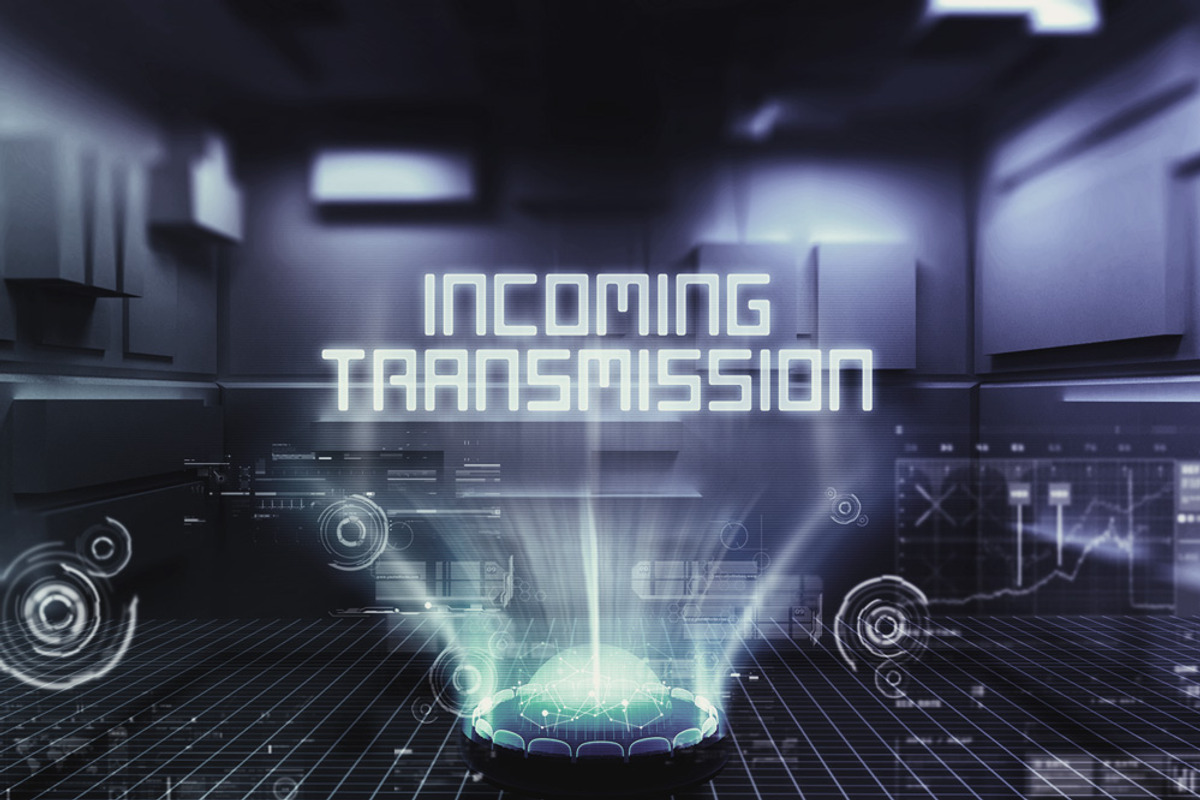
Solaris - Futuristic Font
Solaris - Futuristic Font by Tugcu Design Co. is a font selected for branding, posters, packaging, typography.
- Solaris is a futuristic font with alternate letters, numericals and punctuation.
- Solaris Regular
Why Solaris - Futuristic Font is worth a look
Solaris - Futuristic Font by Tugcu Design Co. fits naturally into Branding, posters, packaging, typography.